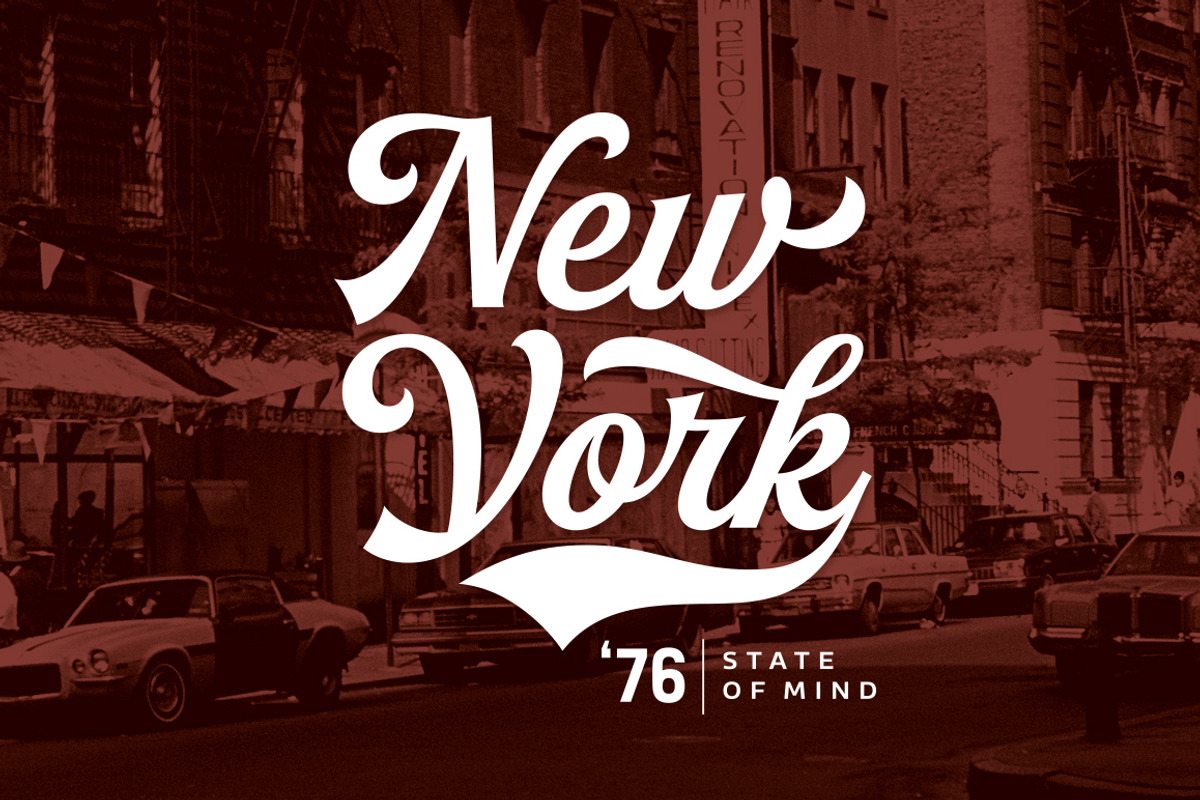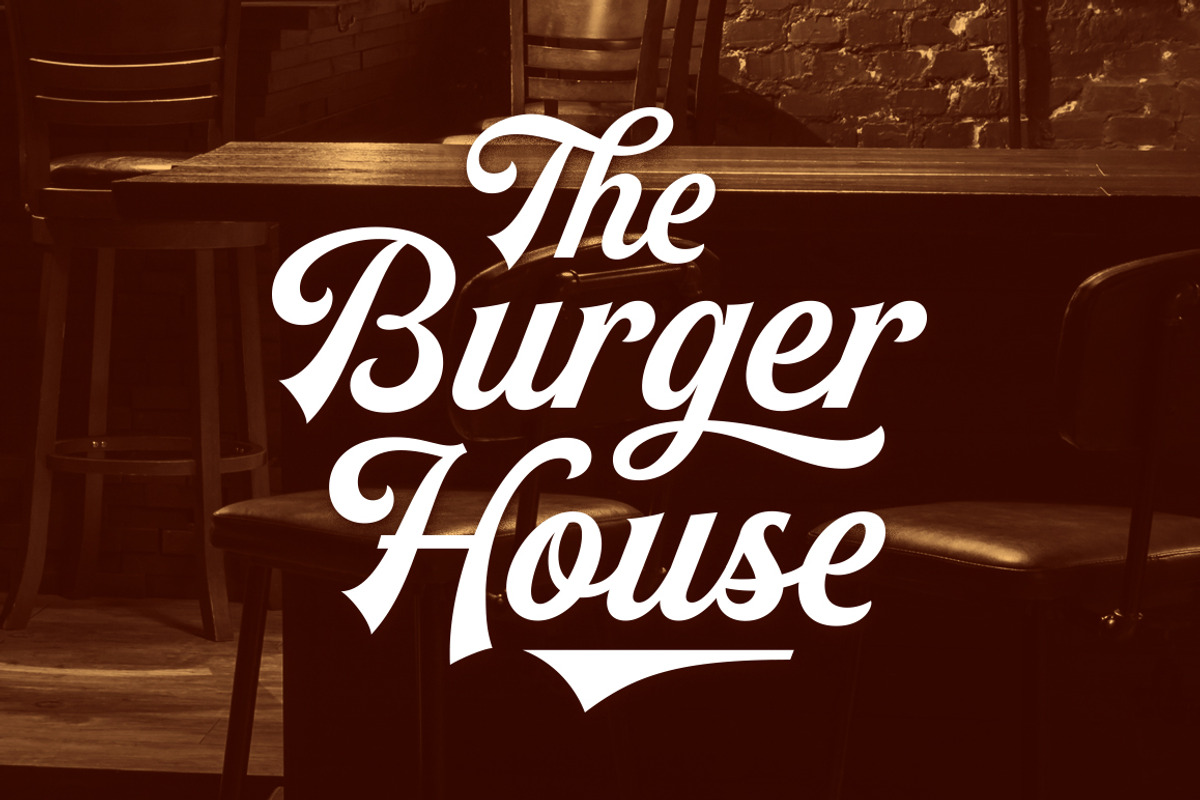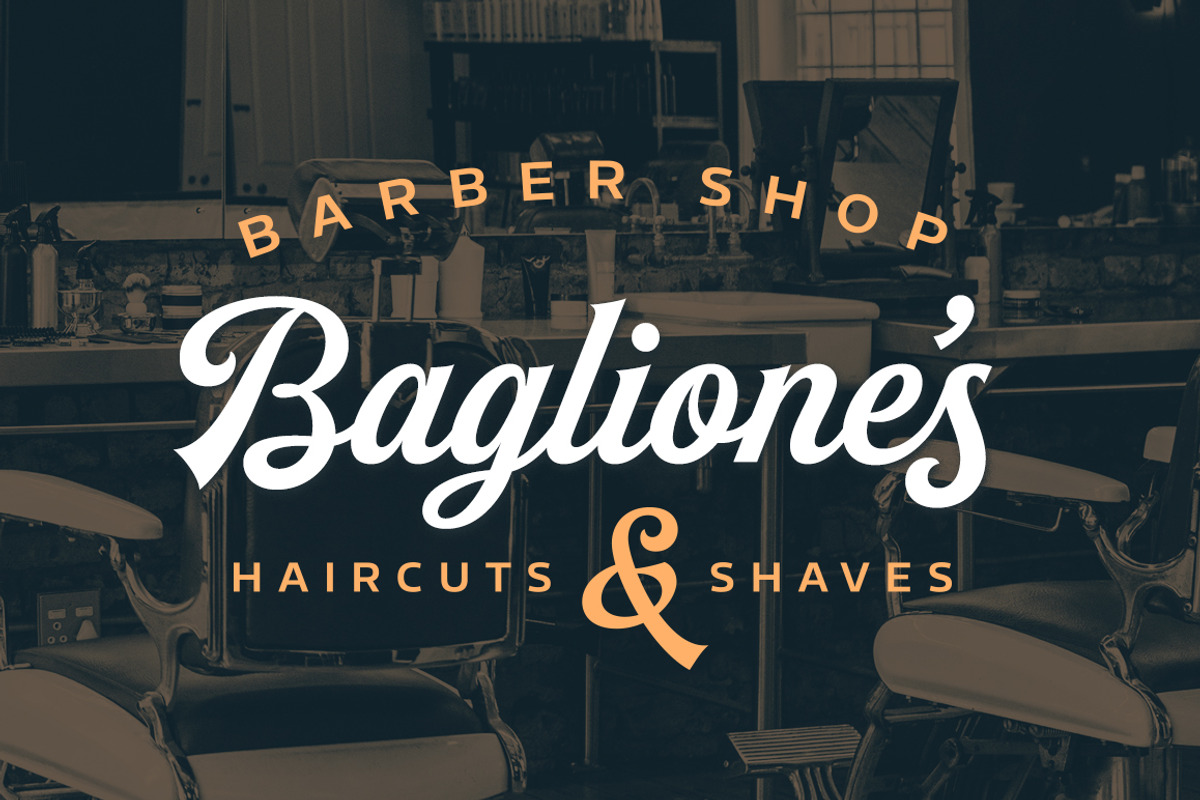
Buinton is a script typeface with noble and vintage looks. It has serifs at the beginnings of the strokes, swash capitals and formal design. Buinton has lots of alternate characters, swashes and ligatures. It has also a bunch of tails with different shapes and widths to give the vintage logotype or sports look to your design.
These alternates makes Buinton very versatile. You can design beautiful, elegant and diverse typographic elements with it. It’s well suited for logos, lettering artwork, t-shirt designs, editorial illustrations to name a few.